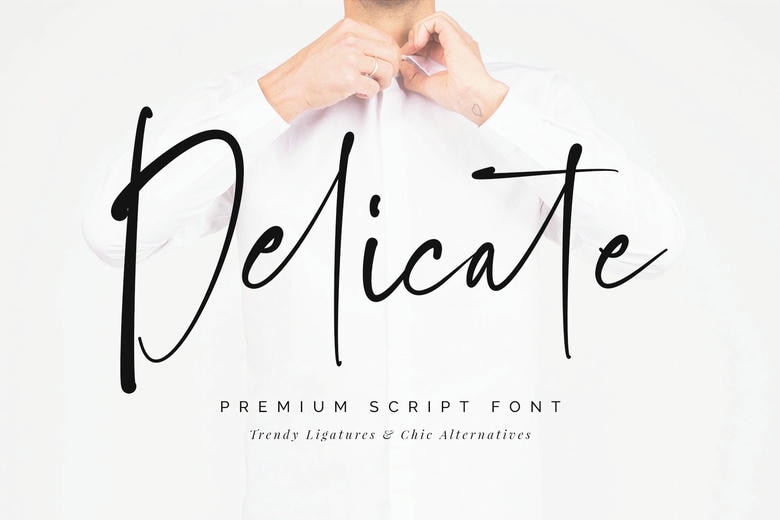
Delicate Script Font
Delicate is a stylish handwritten font that looks smooth and clean. If you need a font for Instagram or want a calligraphy script for your DIY projects, this font can help bring your creative ideas to life.
Delicate Script Handwritten Font